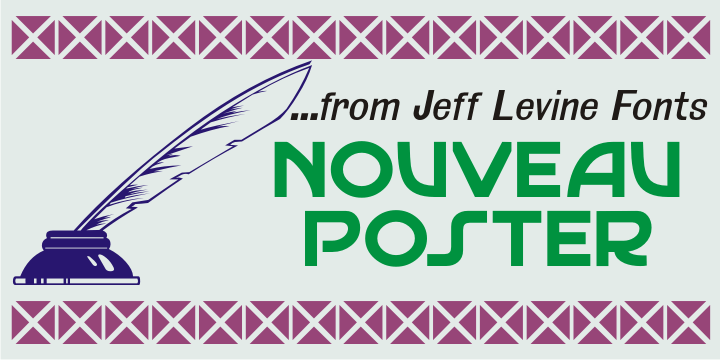
Nouveau Poster
When master letterer Hugh Gordon and his student, Ross F. George developed a set of lettering pens between June 16, 1913 and Sept. 1, 1914, they had no idea that their invention (which they named Speed-BallĀ®) would still be in use nearly a hundred year later.
The C. Howard Hunt pen company [originally of Camden, New Jersey] became the original (and sole) distributor of these pens.
By 1915 an instructional booklet entitled "Modern Pen Lettering" was produced, and it was copiously illustrated with examples of layouts, lettering techniques and an assortment of alphabets for the user to learn.
Nouveau Poster JNL is Jeff Levine's interpretation of a sanserif design found within the pages of this vintage publication.